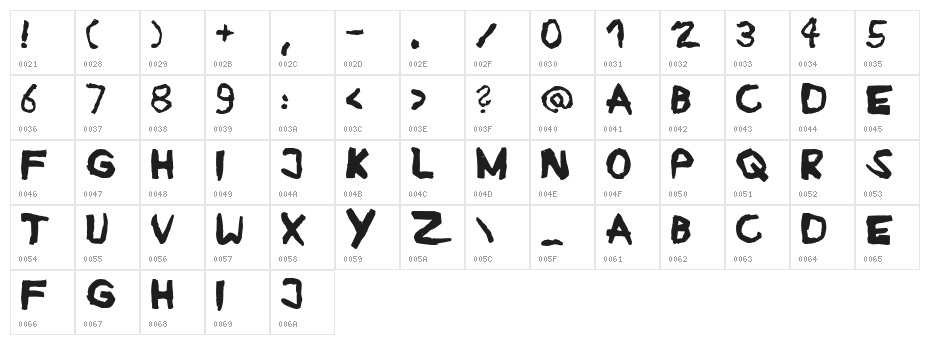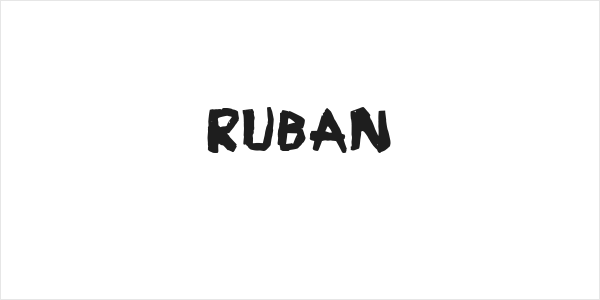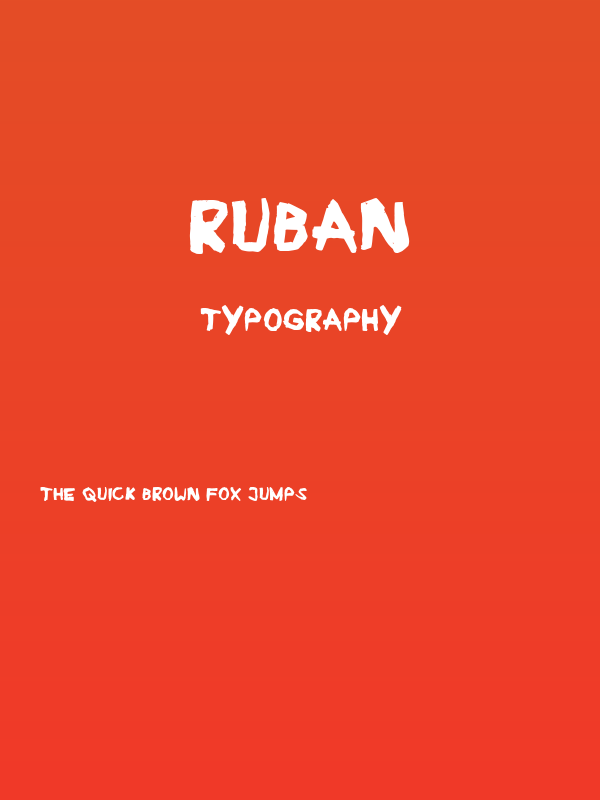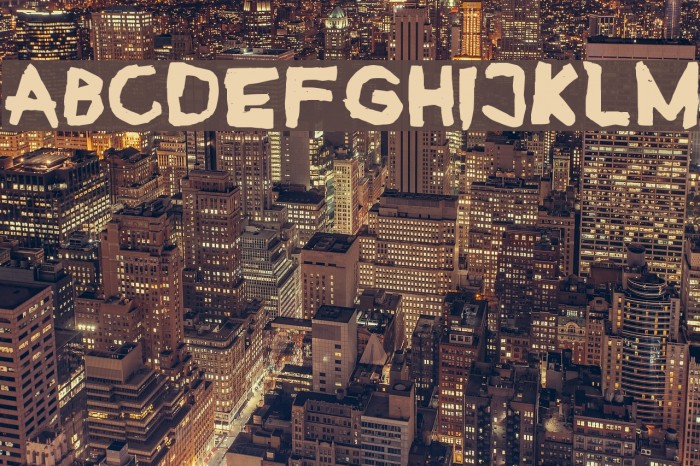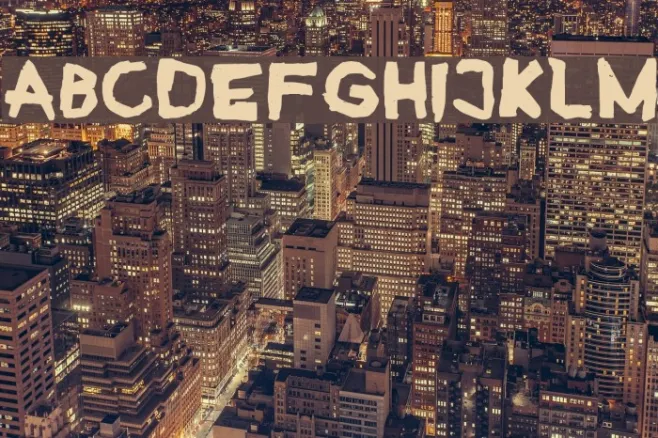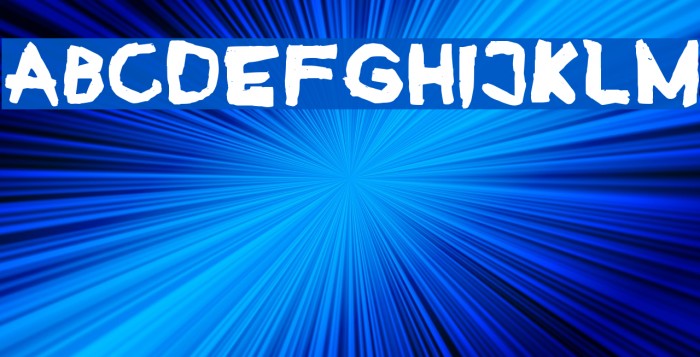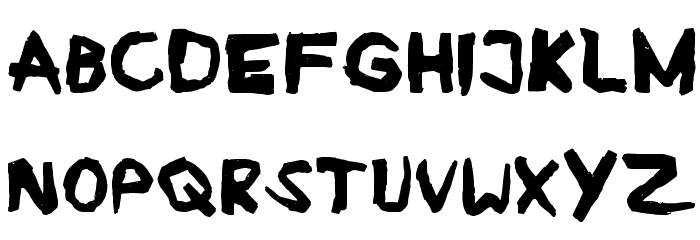
Ruban Font
Ruban Description
This font features a bold, hand-drawn style with irregular, jagged edges that give it a rugged and organic appearance. The characters are uppercase and numerals, each with a unique, slightly distressed look, adding to its raw and expressive nature. The strokes are uneven, contributing to a dynamic and energetic feel. This font is ideal for projects that require a touch of authenticity and a handcrafted aesthetic. Its boldness ensures high visibility, making it suitable for impactful designs.
| Proposed Projects | Ideal for posters, album covers, branding for artisanal products, or any project needing a bold, handcrafted look. |